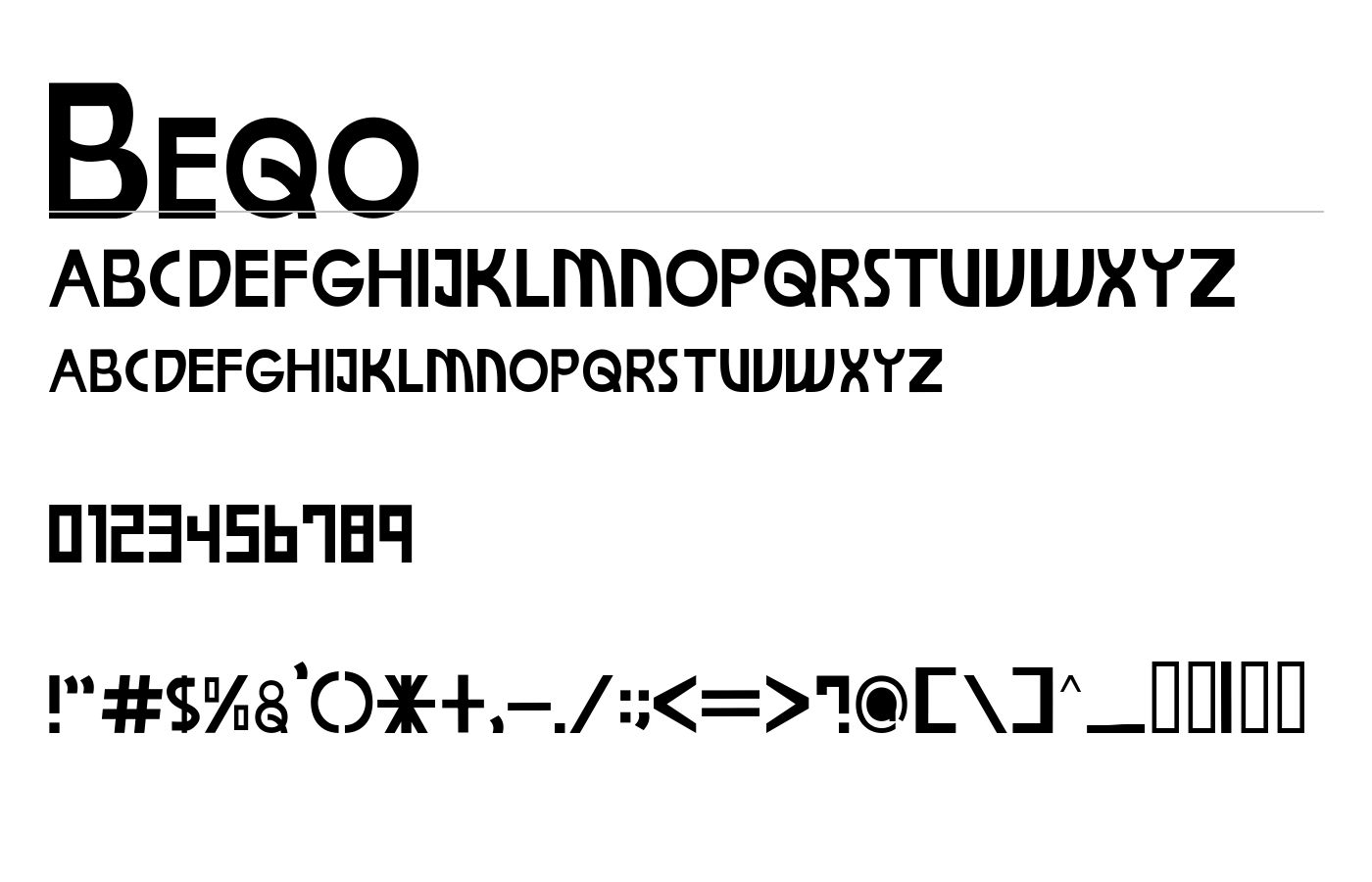
Beqo is a distinctive sans serif font with a bold and geometric design, featuring sharp, clean lines and a modern, slightly condensed structure. Its unique letterforms, such as the squared-off curves and angled strokes, give it a futuristic and tech-savvy feel, making it ideal for branding, headlines, and digital projects that want to convey innovation and strength. This font works well for logos, posters, and websites where a strong visual impact and contemporary style are desired.
Beqo Font